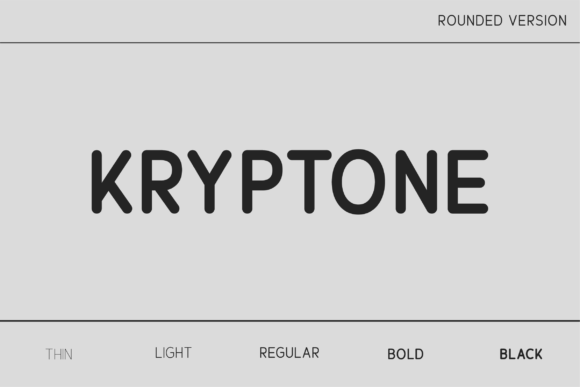
In a world where visual aesthetics captivate, allow us to introduce Kryptone Rounded Font, a masterpiece that strikes a harmonious balance between sophistication and warmth. This captivating sans serif typeface transcends the ordinary, captivating hearts with its graceful curves and rounded edges.
Embark on a journey of creativity with Kryptone Rounded, the perfect font for expressing your individuality. Its welcoming presence invites you to explore a world of design possibilities, where Logos, Headlines, and User Interfaces come alive with a touch of elegance and playfulness.
As a versatile chameleon in the world of fonts, Kryptone Rounded effortlessly adapts to a myriad of design projects. Let it elevate your logos, adding a touch of modern luxury. Transform your headlines into captivating statements, capturing attention from afar. Enhance the user experience with user interfaces that exude sophistication and ease of use.
With five distinct weights at your disposal, Kryptone Rounded empowers you to craft designs that resonate with your unique style. From the delicate whisper of Thin to the bold declaration of Black, each weight carries its own personality, ready to infuse your creations with elegance and impact.
In the realm of artistic expression, Kryptone Rounded emerges as a champion, a font specially crafted for Art Cv. Its ability to convey emotions and evoke a sense of wonder makes it the perfect companion for showcasing your creative journey. Let Kryptone Rounded be your muse, inspiring you to create awe-inspiring designs that leave a lasting impression.